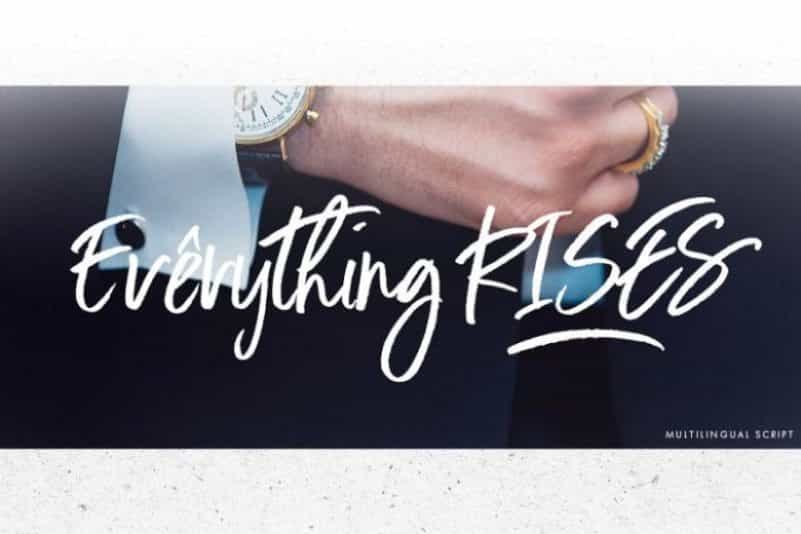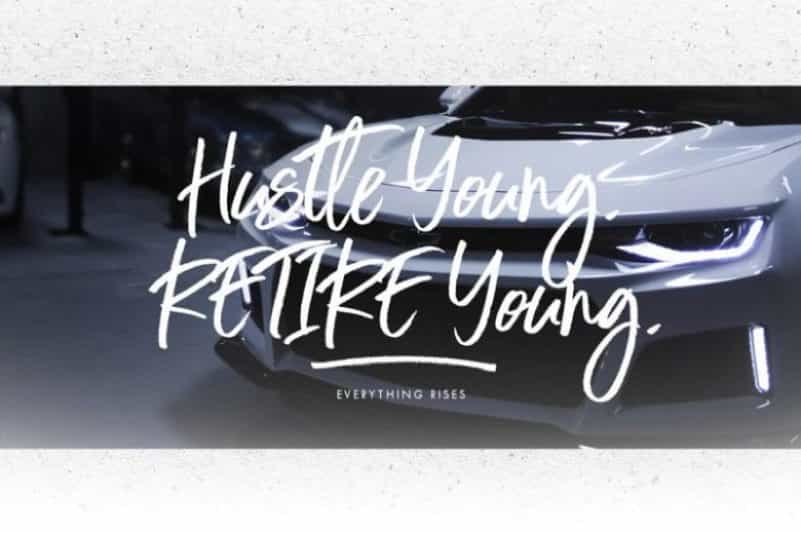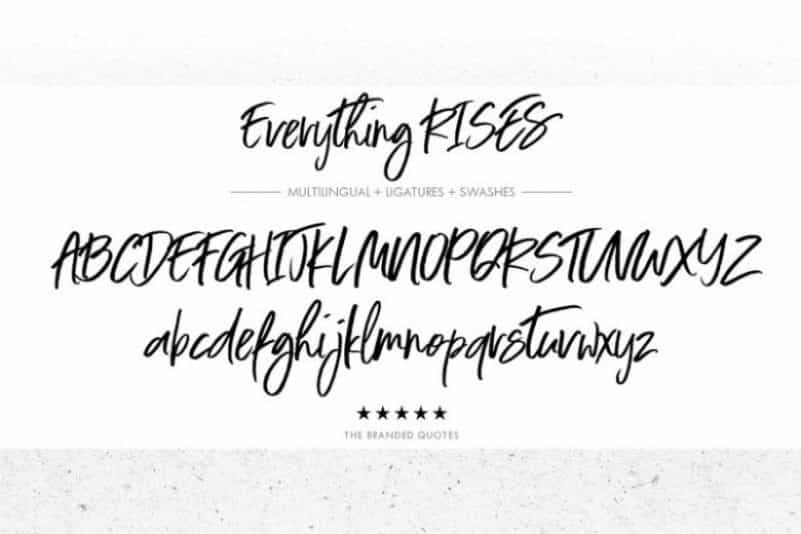
Discover Everything RISES Script Font, part of the Brush collection—a versatile and unique font perfect for adding a personal touch to your projects. Download it for free and enjoy crafting designs with style, from invitations to social media posts. This font is available exclusively for personal use, giving you the freedom to create without limits. Unlock your creativity with Everything RISES Script Font today!
Everything Rises is a pretty lively multilingual typeface. Do not limit yourself, create as you wish with the help of this unique script.